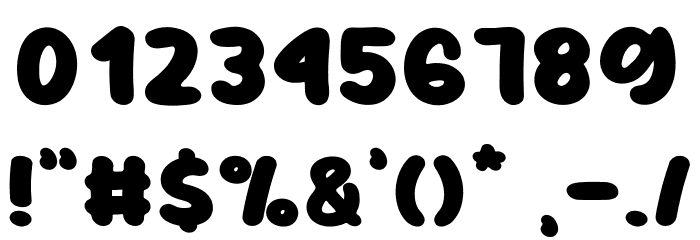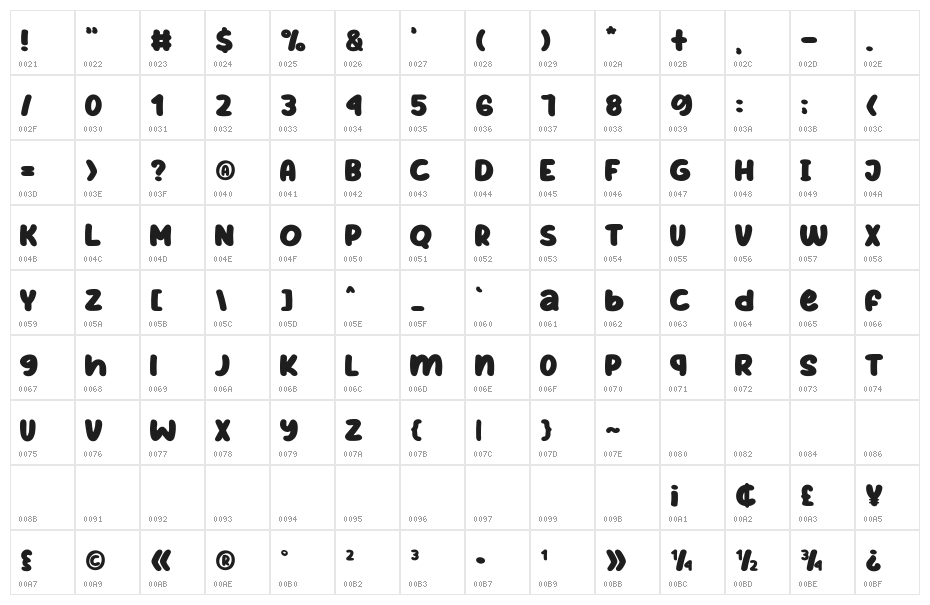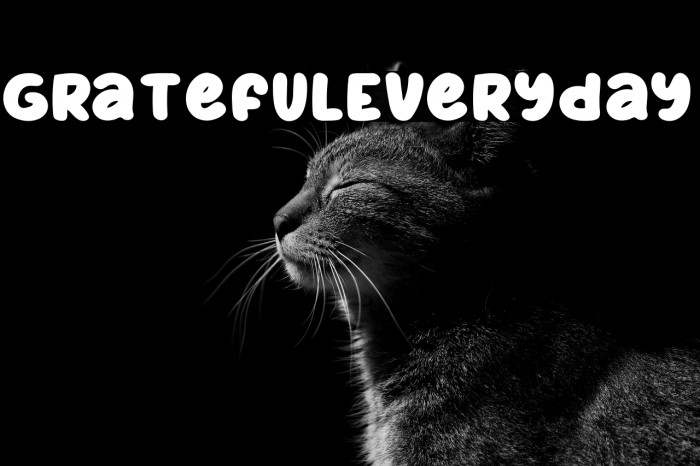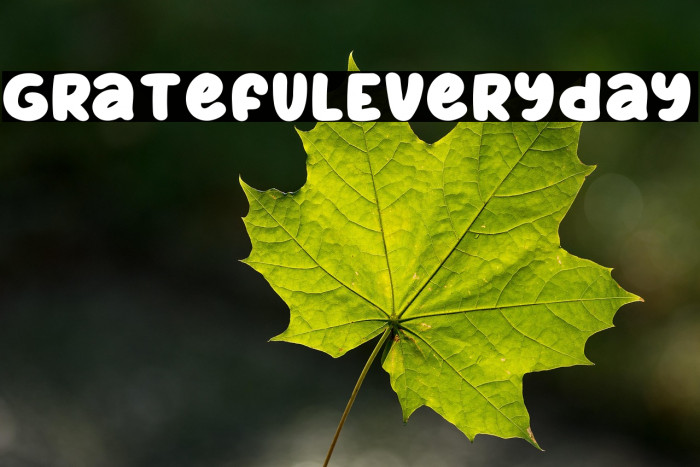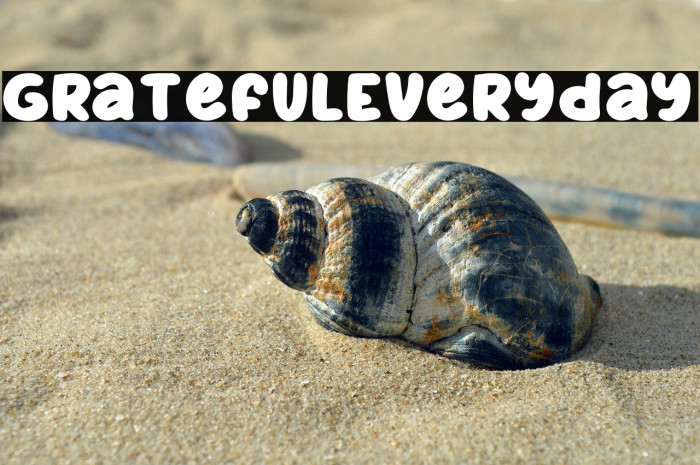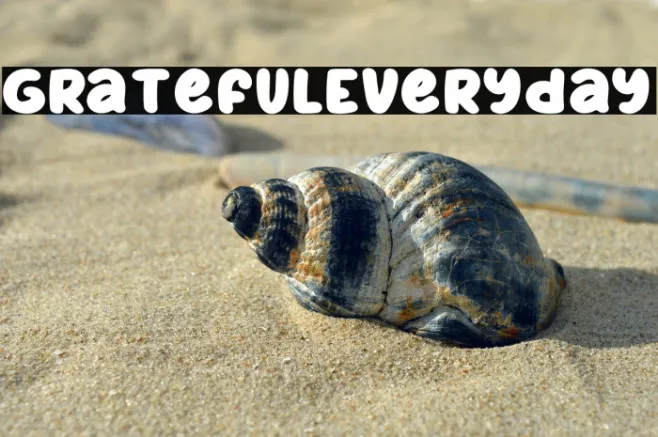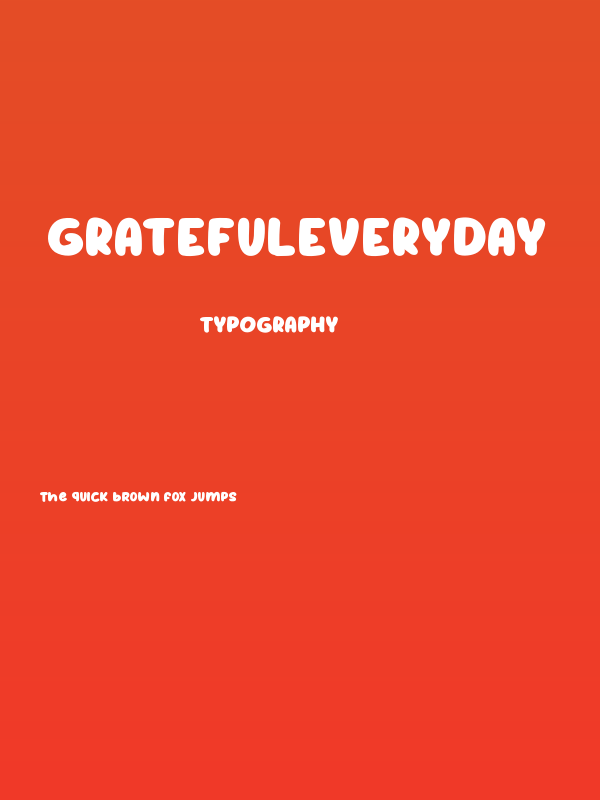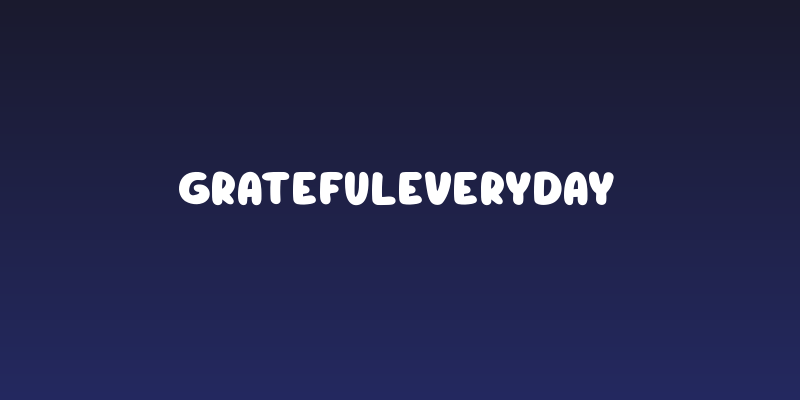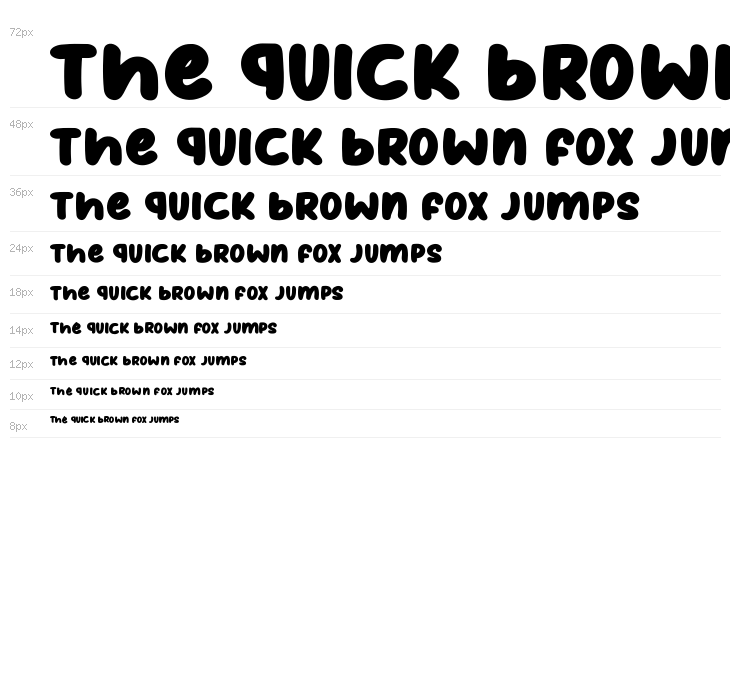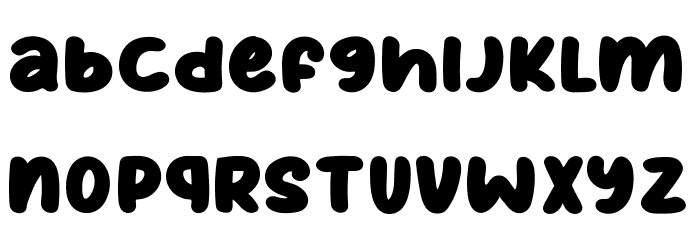
GratefulEveryday Font
GratefulEveryday Description
This playful and bold font features rounded, bubbly characters that exude a sense of fun and whimsy. The letters are thick and uniform, with a consistent stroke width that gives them a solid and substantial appearance. The rounded edges and lack of sharp angles contribute to a friendly and approachable feel. The font maintains a consistent baseline and x-height, ensuring readability while adding a touch of personality. Its boldness makes it stand out, making it ideal for attention-grabbing designs. The numbers and special characters are equally bold and rounded, maintaining the cohesive style throughout the character set.
| Proposed Projects | Ideal for children's books, playful branding, party invitations, and eye-catching posters. |